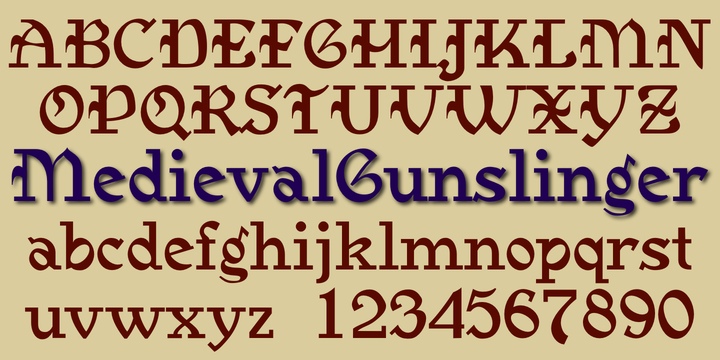
Medieval Gunslinger Font
Medieval Gunslinger Font is perfect for fantasy gaming branding, western-medieval fusion entertainment, steampunk event promotions, historical reenactment materials, alternative history publications, fantasy western movie marketing, medieval tavern signage, and cross-genre storytelling projects where ancient chivalry meets frontier justice.
What makes Medieval Gunslinger Font so exciting is its unique ability to blend medieval heraldry with Wild West grit through bold letterforms that embody both knightly honor and frontier courage while maintaining excellent readability for adventure communications. The hybrid character design reflects the fascinating convergence of chivalric tradition and gunfighter determination that creates compelling alternative history narratives.
The Medieval Gunslinger Font family includes regular, bold, weathered, and ornamental variants, with knight-cowboy inspired decorative elements and cross-genre ornaments that provide comprehensive tools for creating authentic medieval-western branding and fantasy frontier design systems.
This adventurous typeface represents the fusion of two legendary eras, combining medieval romance with Wild West adventure requirements. The Medieval Gunslinger Font Free Download gives fantasy creators access to typography that communicates honor-bound adventure and frontier heroism.
The font's armored character construction and frontier proportions create immediate associations with both castle keeps and saloon showdowns. Each letterform has been designed to evoke the courage and code of honor that defines both medieval knights and legendary gunslingers in alternative history storytelling.
Medieval Gunslinger Font excels in creating memorable fantasy communications that blend historical periods and celebrate heroic adventure across genres. The typeface's hybrid character makes it ideal for game developers, fantasy publishers, and entertainment companies targeting audiences fascinated by cross-genre historical adventures.
From steampunk novels to fantasy western games, this font brings genre-blending credibility that appeals to audiences seeking unique alternative history experiences and cross-cultural hero narratives. The versatile design maintains its adventure character across both traditional fantasy materials and modern digital gaming platforms.